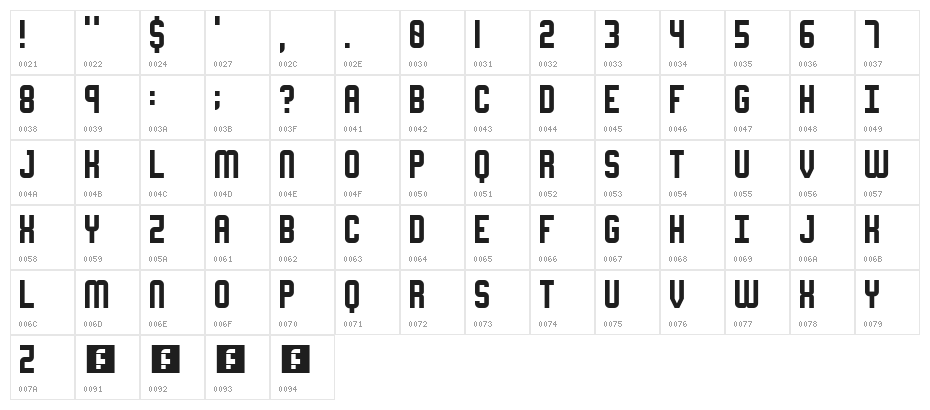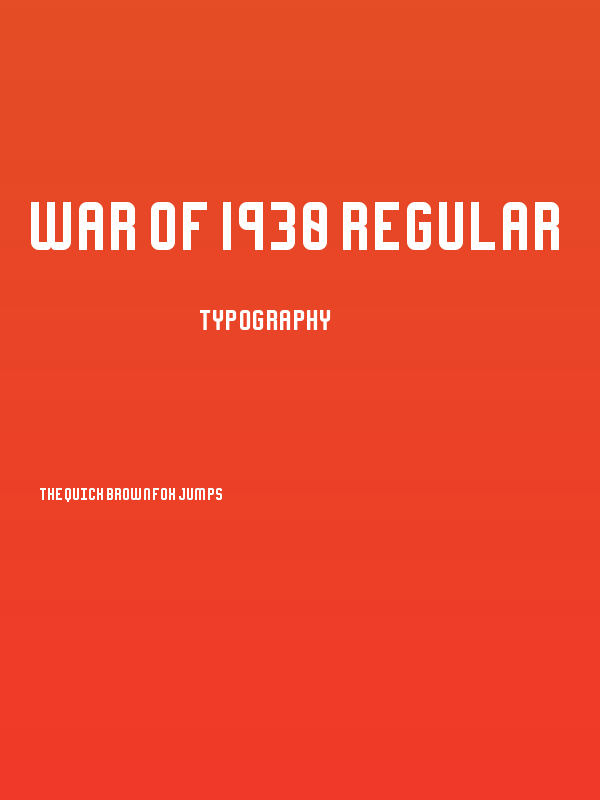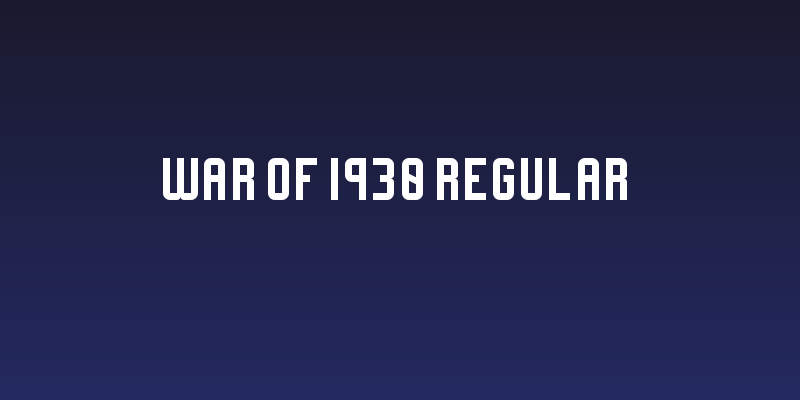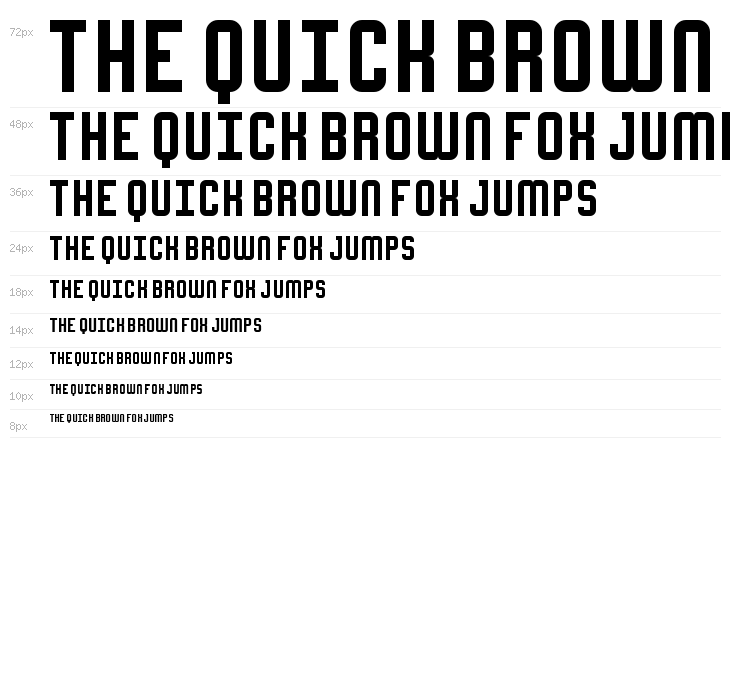
War of 1930 Regular Font
War of 1930 Regular Description
This font features a bold, geometric design with a strong presence. The characters are uniformly structured, with consistent stroke widths that give it a modern and industrial feel. The uppercase and lowercase letters are similar in style, maintaining a cohesive look throughout. The numerals are clear and easy to read, while the special characters are distinct and well-integrated. The overall appearance is clean and straightforward, making it suitable for various design applications where a strong, impactful typeface is needed.
| Proposed Projects | Ideal for branding, posters, headlines, and signage where a strong, impactful typeface is desired. |